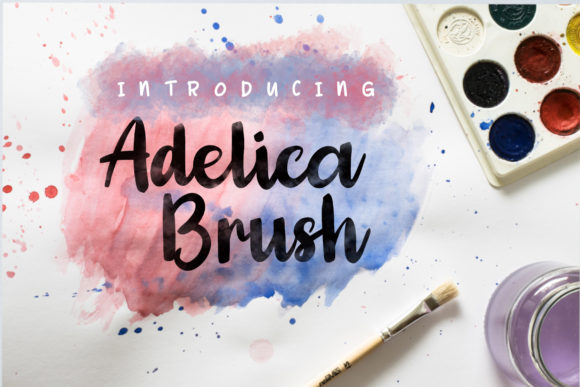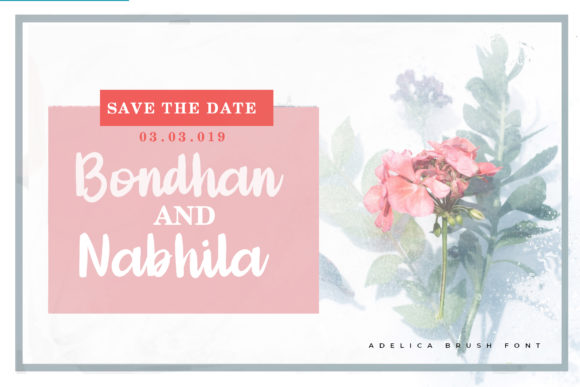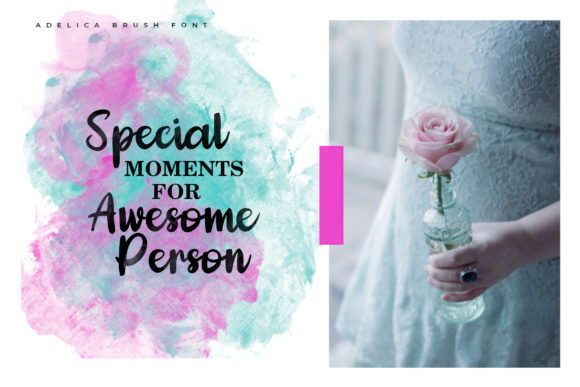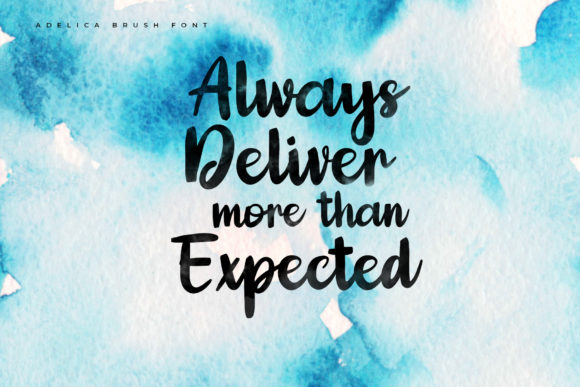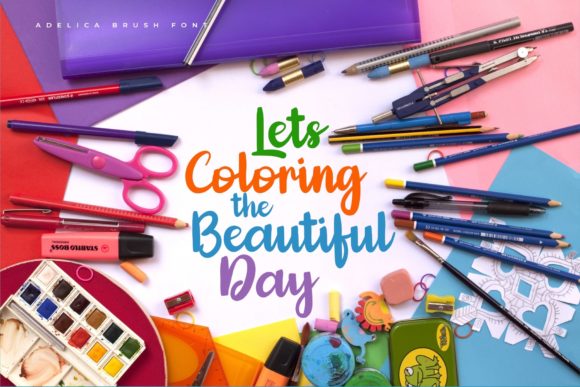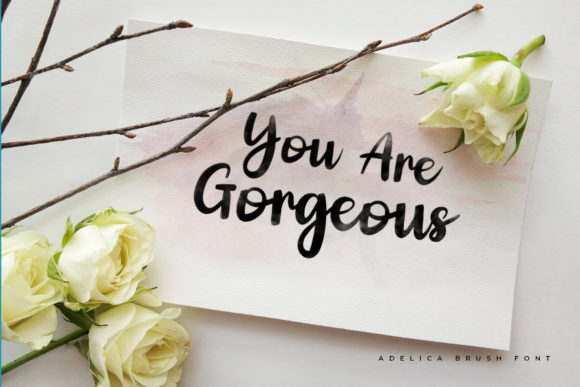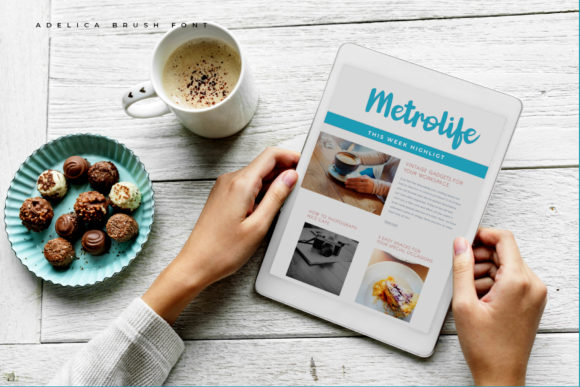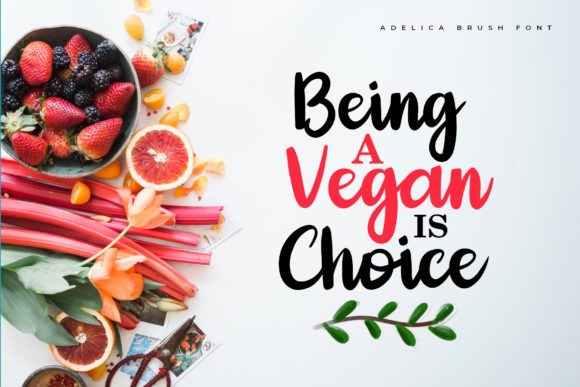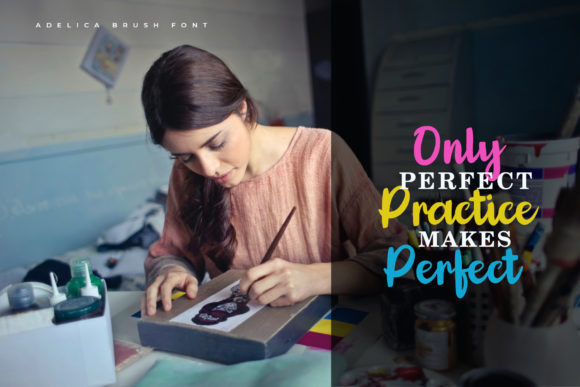
Adelica Brush Font
About Adelica Brush Font
The Adelica Brush is a striking brush font. It’s perfect for adding a fun, feminine, childish watercolor effect to your designs.